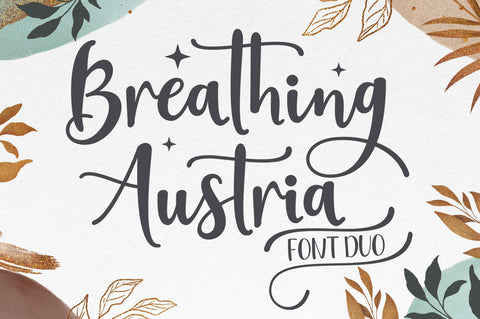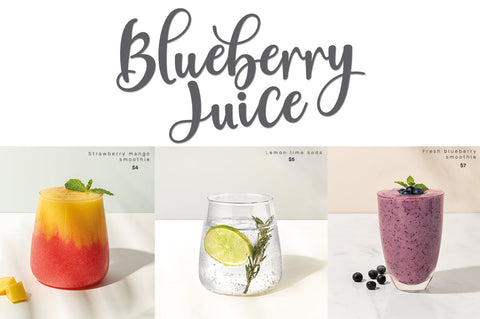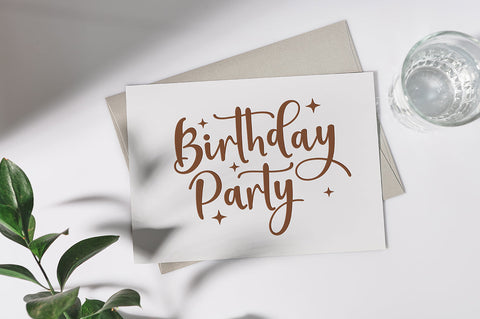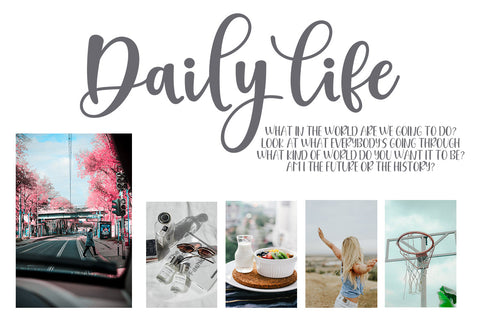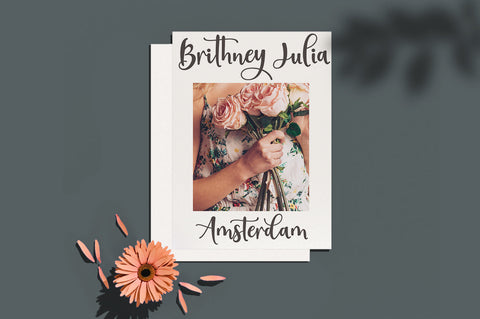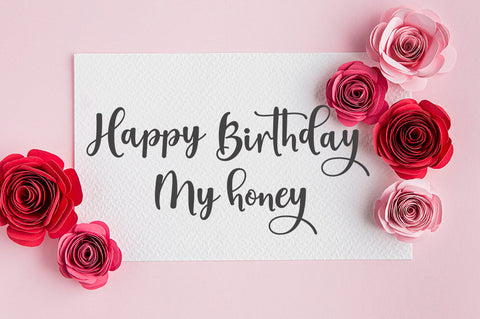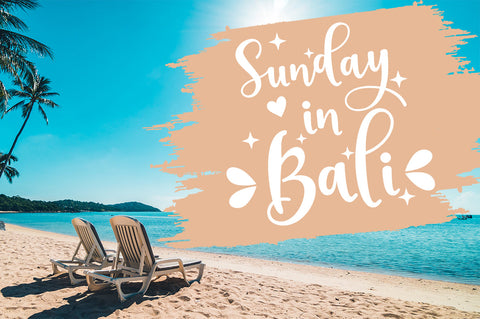
Breating Autria
Breathing Austria- Duo Font With Extras is a new modern script font with an irregular base line. Trendy and feminine style. Breathing Austria- Duo Font With Extras looks beautiful in wedding invitations, thank-you cards, quotes, greeting cards, logos, business cards, and more. Perfect for use in ink or watercolors. Including initial letters and terminals, alternatives and support for many languages.